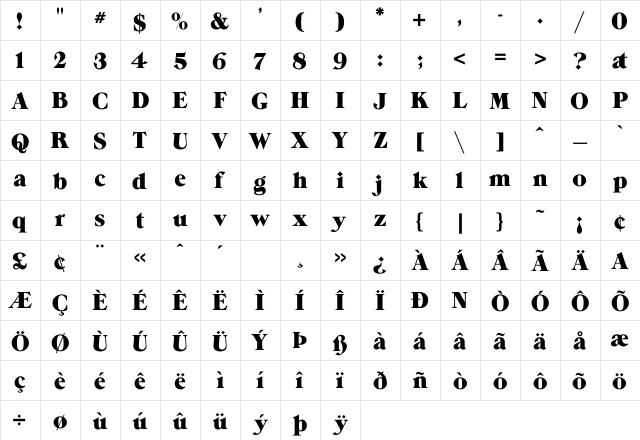
GrandeeCP Regular
Design Context for GrandeeCP Typeface
GrandeeCP takes a measured approach to typography — its balanced proportions and neutral character make it a reliable workhorse for both digital and print work.